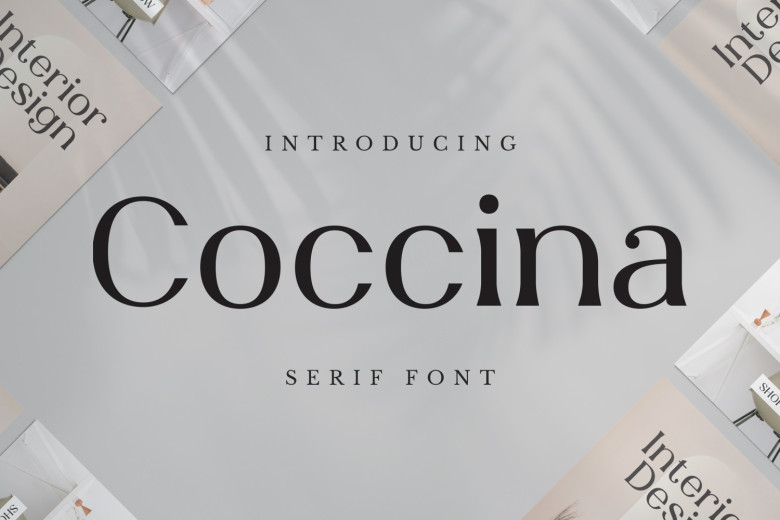
Coccina Font
Coccina is an elegant serif typeface. With its smooth curves and beautiful ligatures, your work will appear true to life and aesthetically pleasing.
This font is highly adaptable and works beautifully at both large and small sizes, making it suitable for various projects including logos and invitations. Furthermore, this font can also be used for branding magazines photography cards mockups quotes posters labels signatures editorials websites art deco social media.
Coccina Serif Font